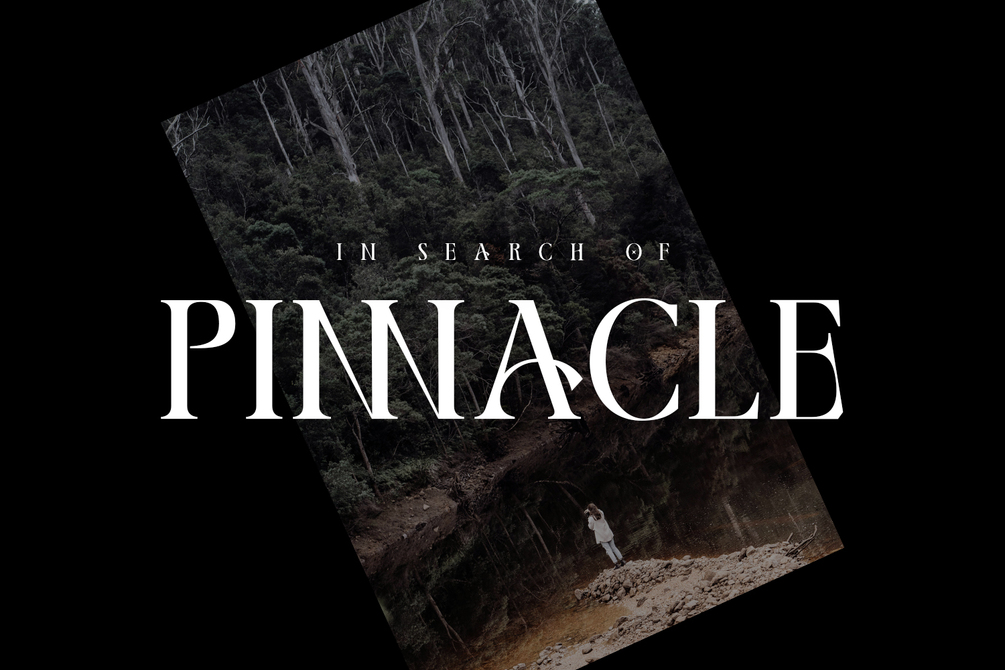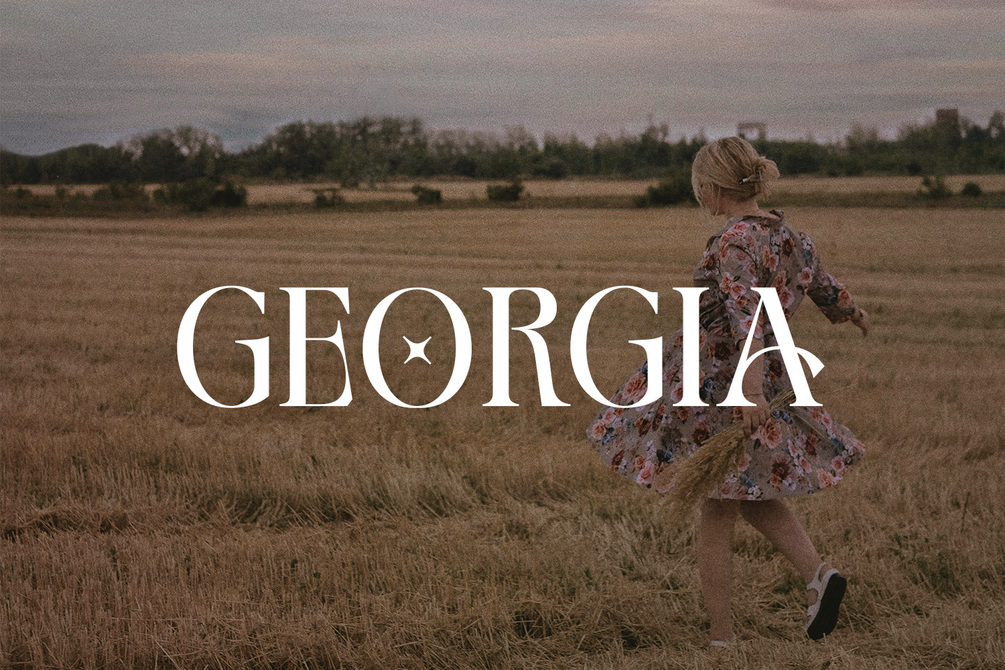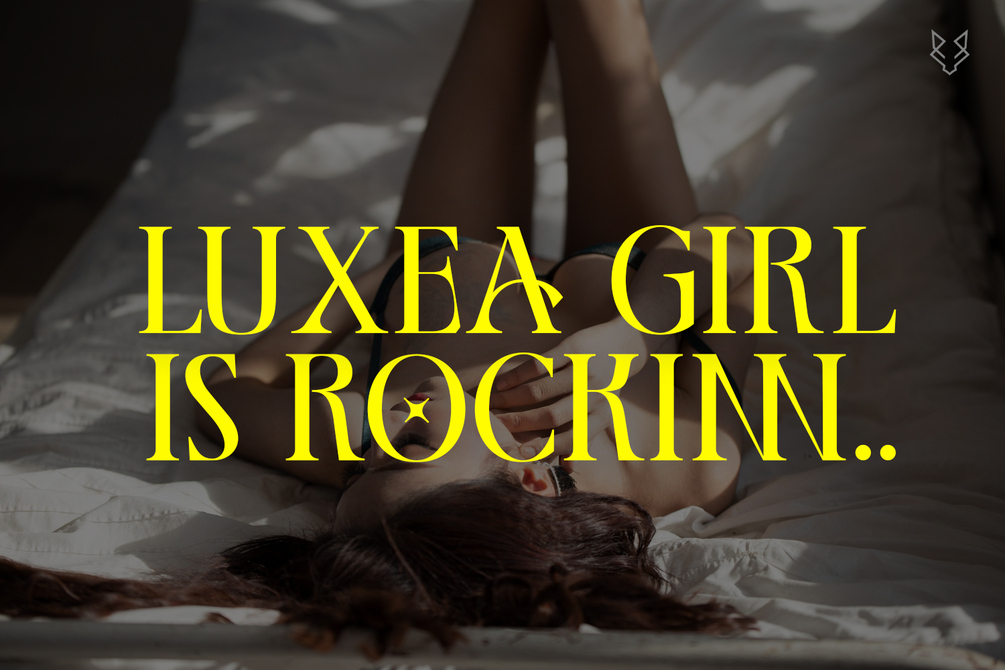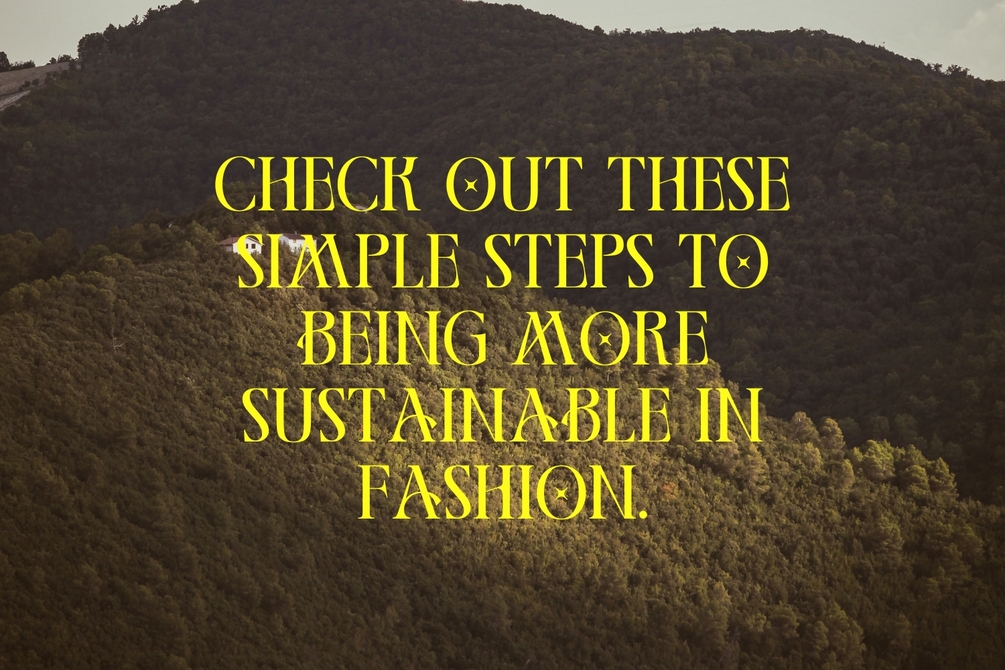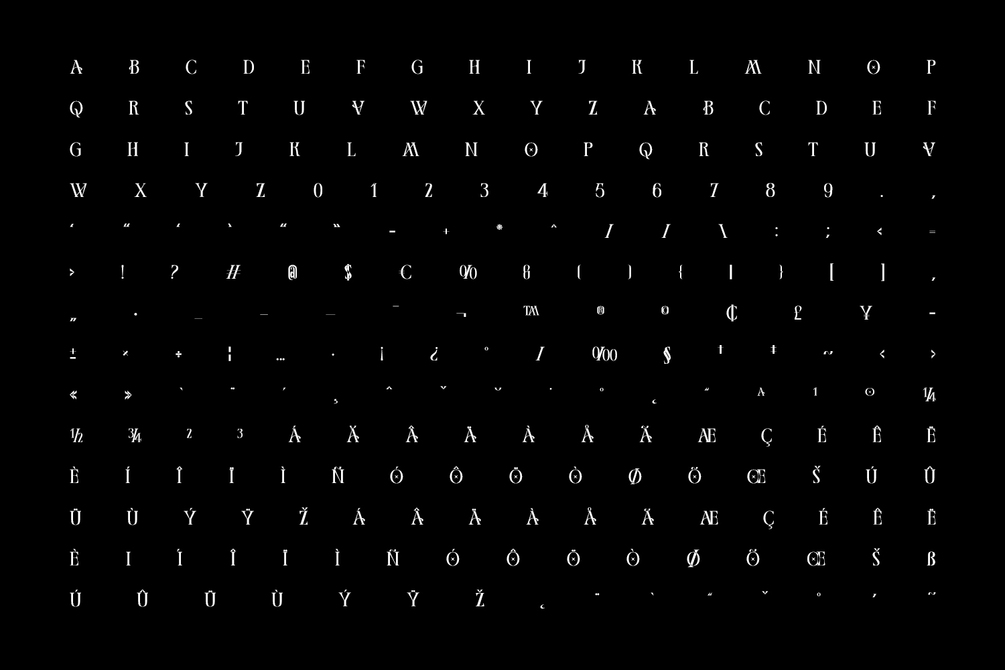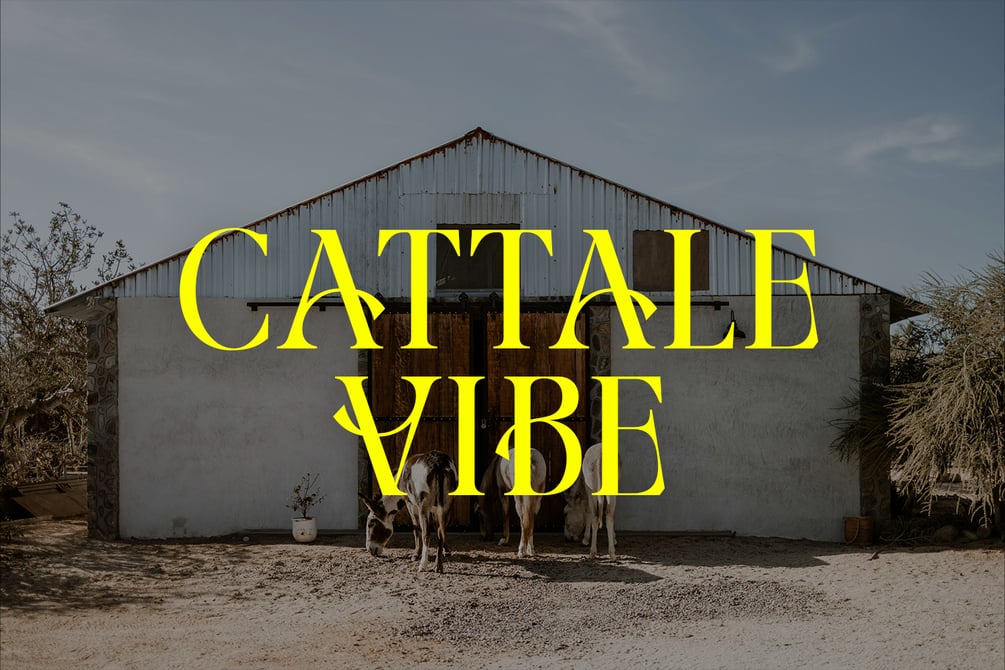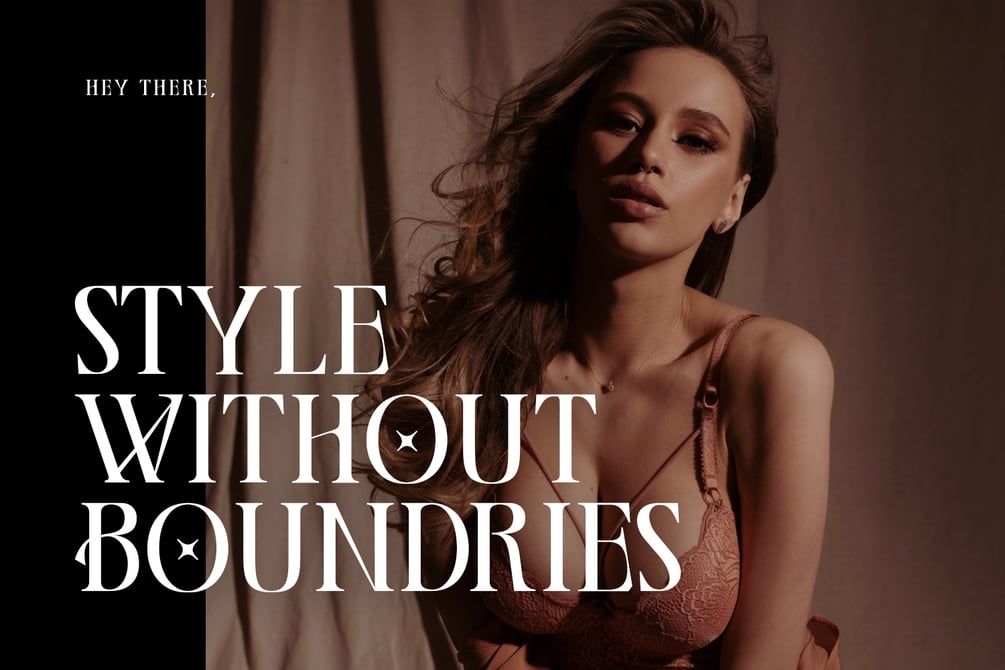
Gerogia Decorative Typeface
Introducing Georgia Typeface, a meticulously crafted decorative font designed to elevate fashion and jewelry brands. With its modern aesthetic and precise details, Georgia seamlessly blends elegance and functionality, making it perfect for Logos, Titles, Headlines, Posters, and Digital displays. This versatile font enhances brand identity across various mediums, including print and screen, ensuring your message is delivered with sophistication and style.